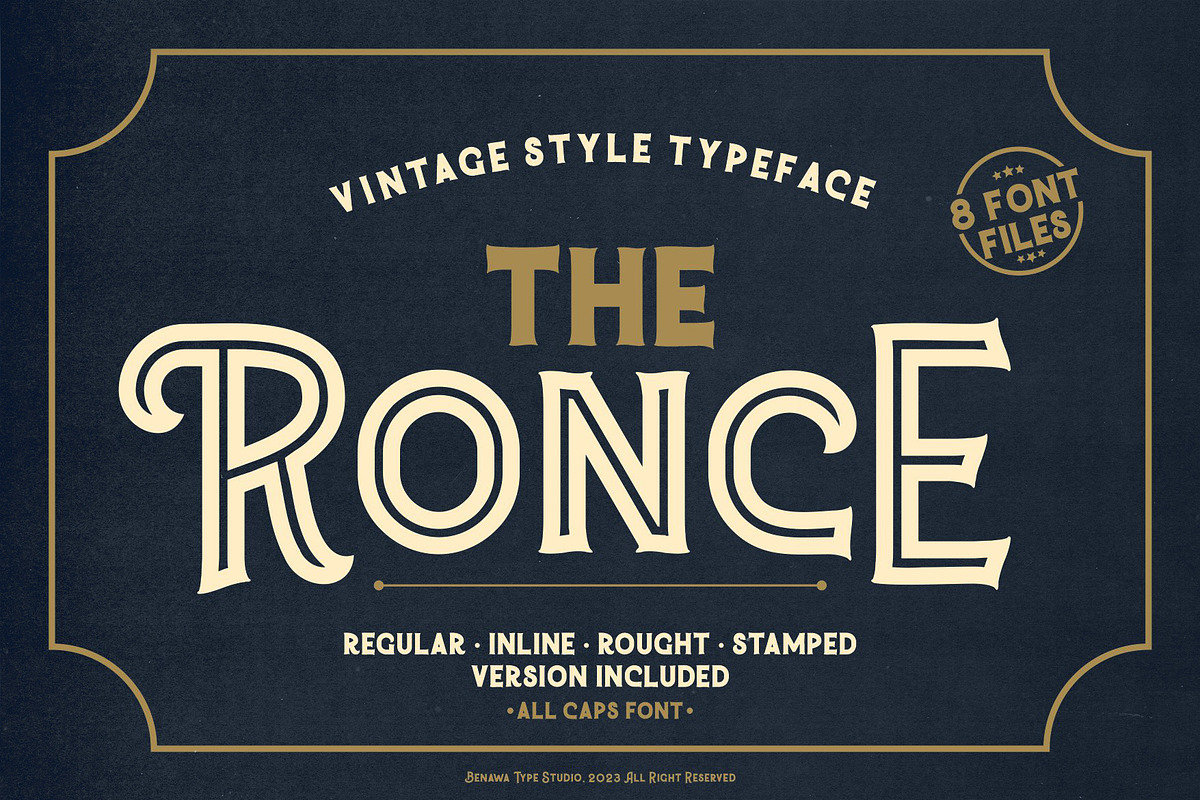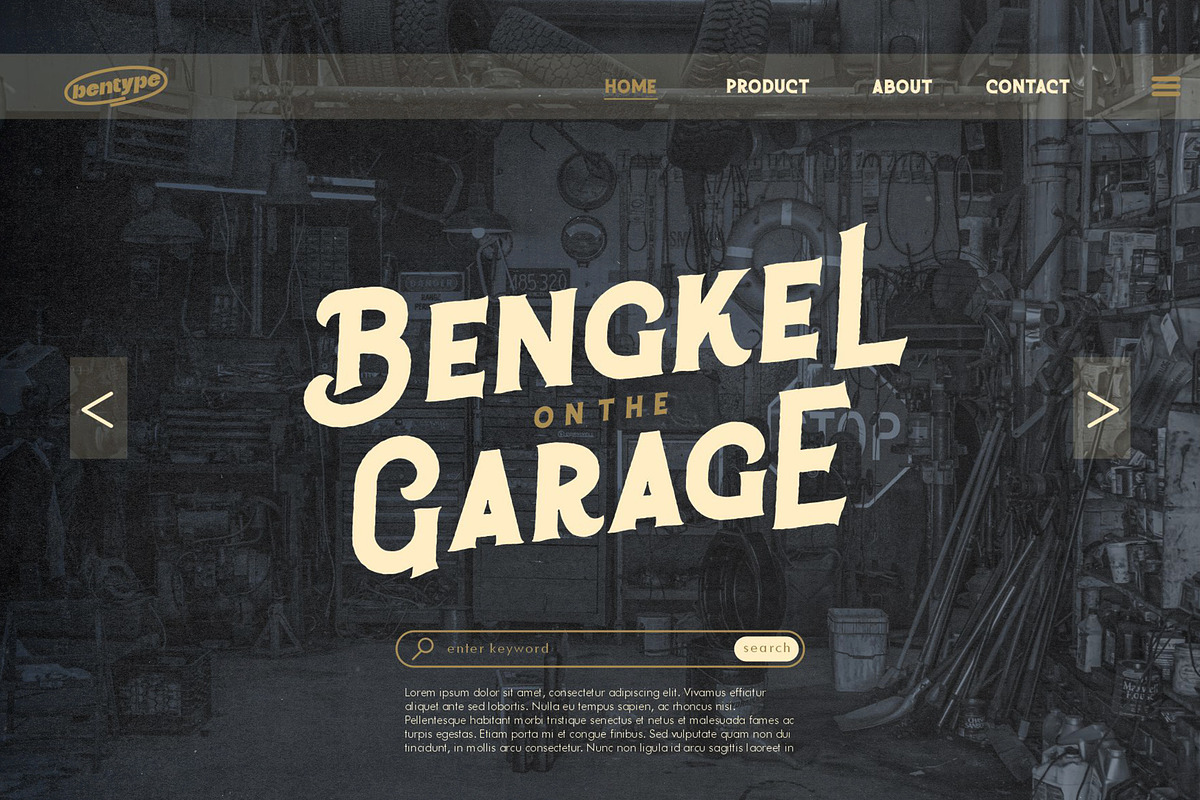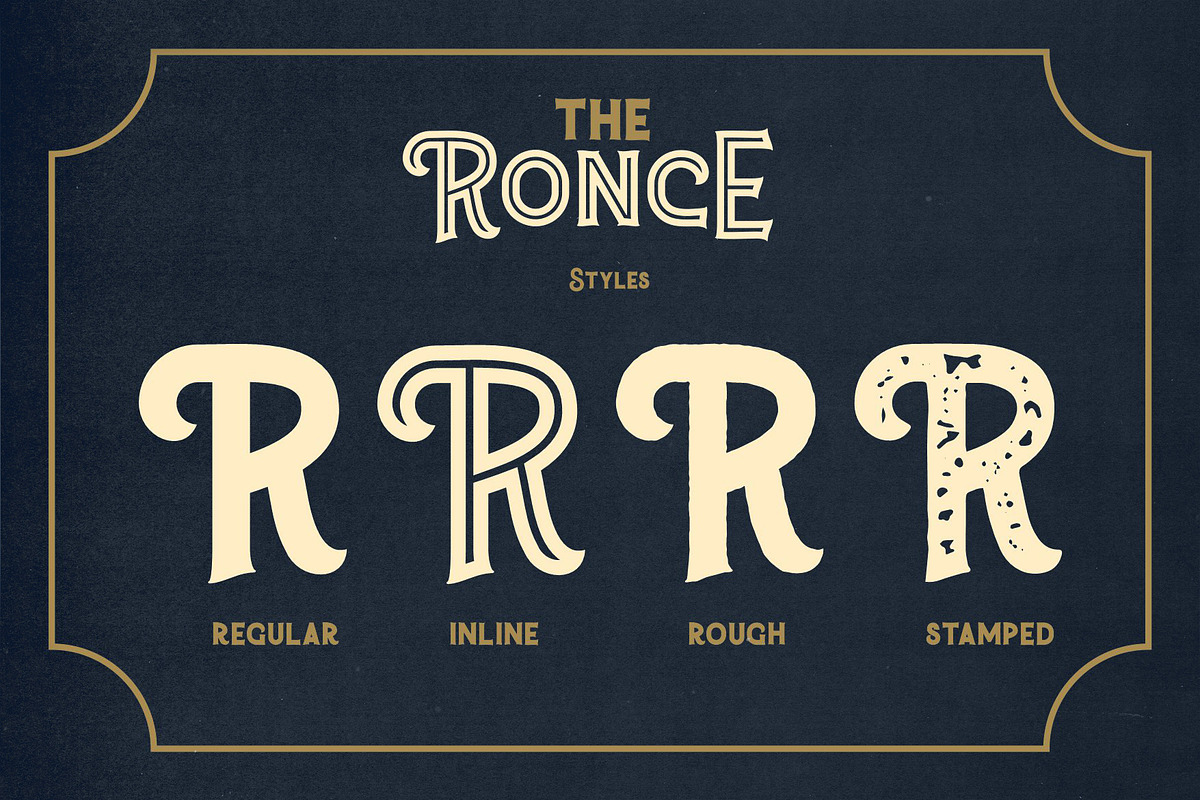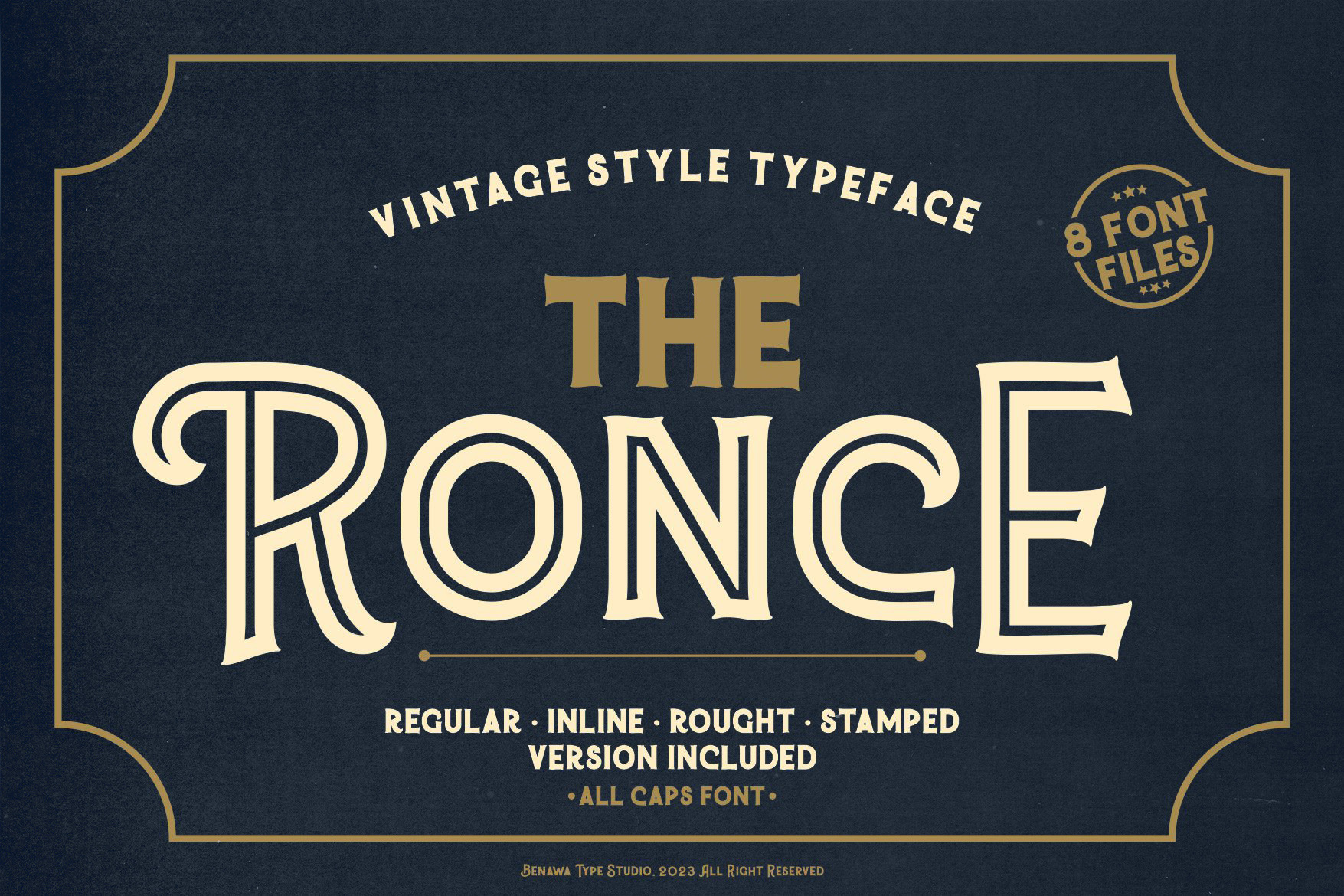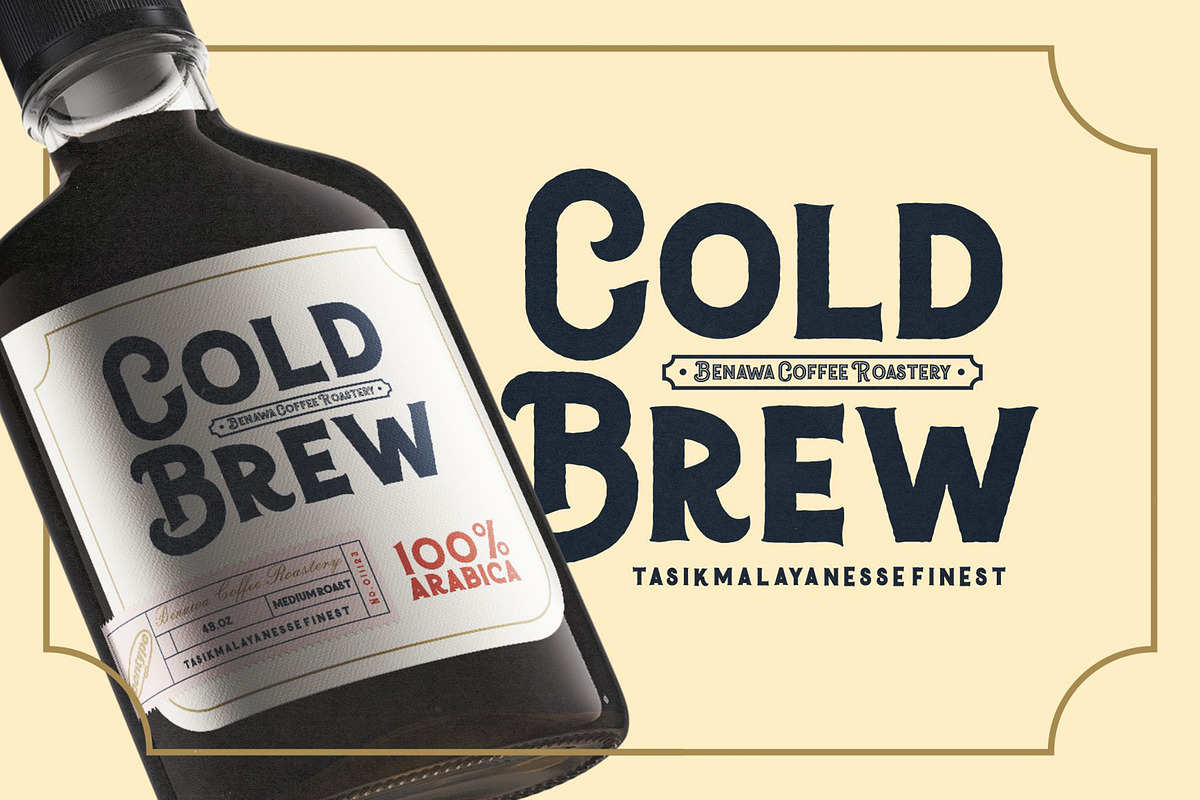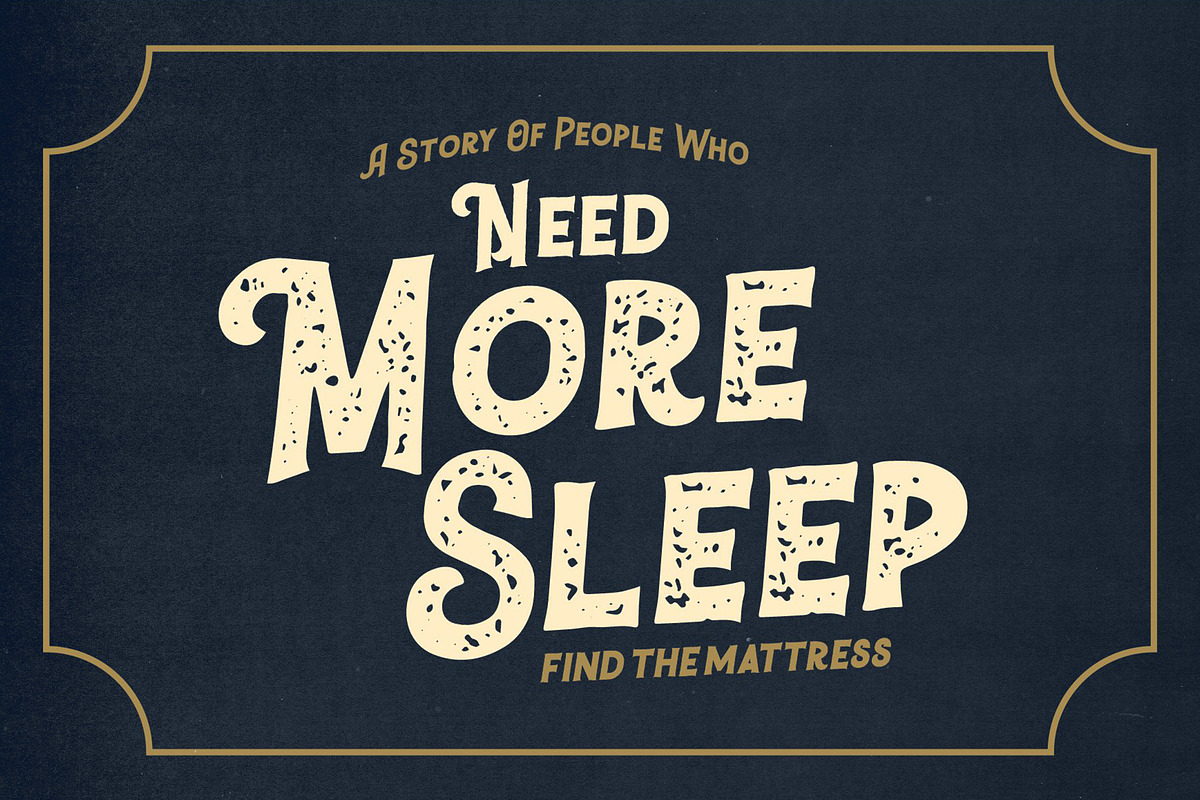
Ronce - Vintage Display Font
Ronce - Vintage Display Font have 4 Style : Regular, rough, inline, Stamped and opentype feature its very helpfull to get Vintage design. All-caps characters, Ronce also has a alternative characters. It looks really cool when meet vintage looks to any piece.
Suitable for any graphic designs such as branding materials, print, business cards, logo, poster, t-shirt, quotes .etc.